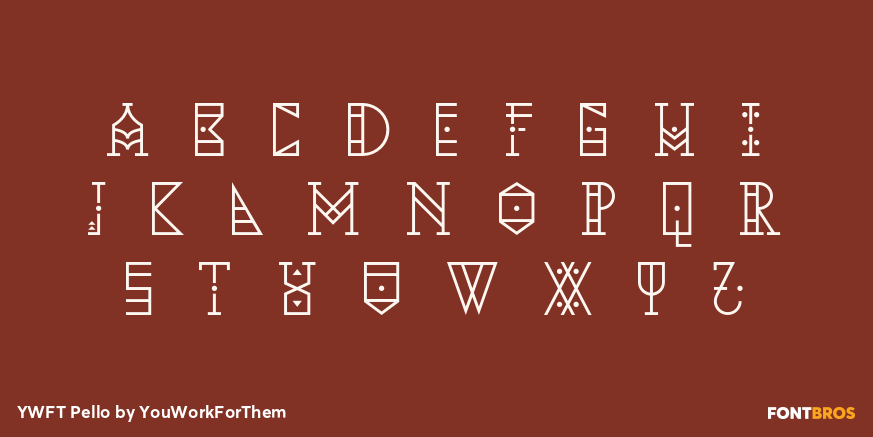
YWFT Pello
Font Family by YouWorkForThem
At first glance, YWFT Pello might appear to be something from the tonalpohualli, and may inspire a pilgrimage to Teotihuac